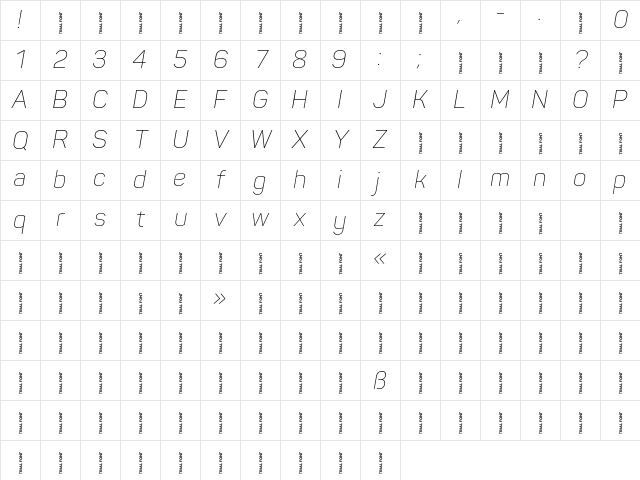
Panton-Trial ExtraLight Italic Free Font
Panton-Trial ExtraLight Italic
Foundry: Fontfabric LLC
Designer: Ivan Petrov, Svet Simov
Design Context for Panton-Trial ExtraLight
Panton-Trial ExtraLight is a composed and adaptable typeface that performs quietly and consistently across a wide range of design contexts. The slanted form adds forward momentum and visual energy. Its slender proportions lend an understated elegance to any composition.
Pro Tip: Use Panton-Trial ExtraLight for emphasis, pull quotes, and subheadings where its slanted energy can add rhythm to the layout.